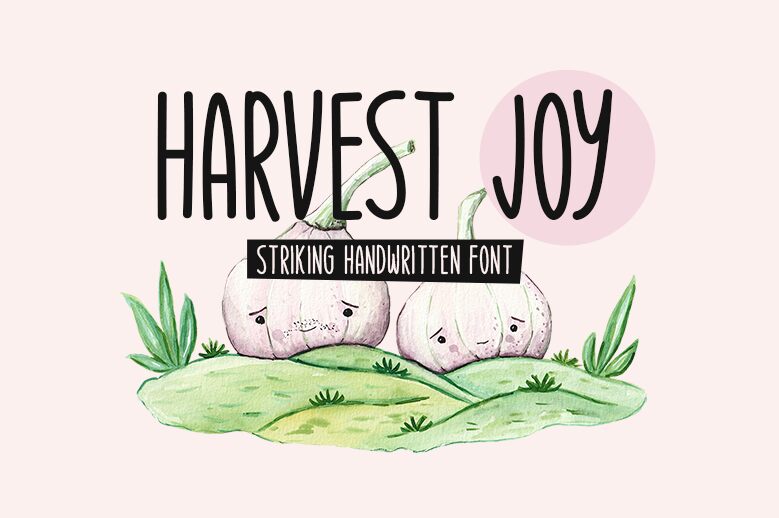
Harvest Joy font by Md Shohail Bhuian is a light handwritten font with a condensed build and whimsical look. The casual, approachable script adds friendliness to any design work it’s used in. Reap benefits from its simplicity and the informal touch it gives.
Modern applications suitable for this free font include informal branding, crafts, posters, book covers, content writing, decorations and ornaments for small businesses such as shops or cafes. Use the font on headlines as well as body texts.
Harvest Joy